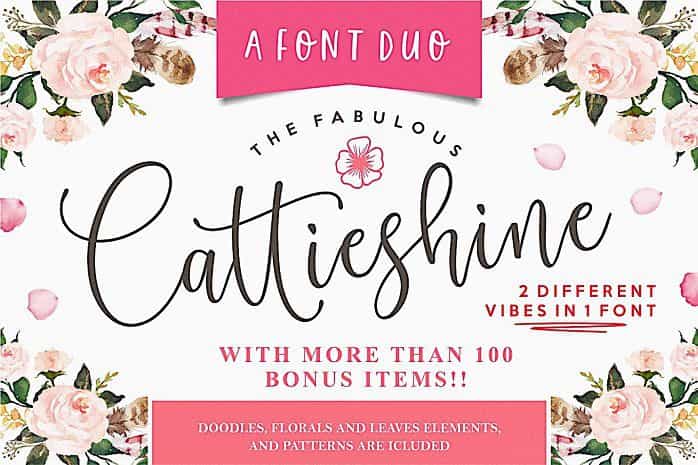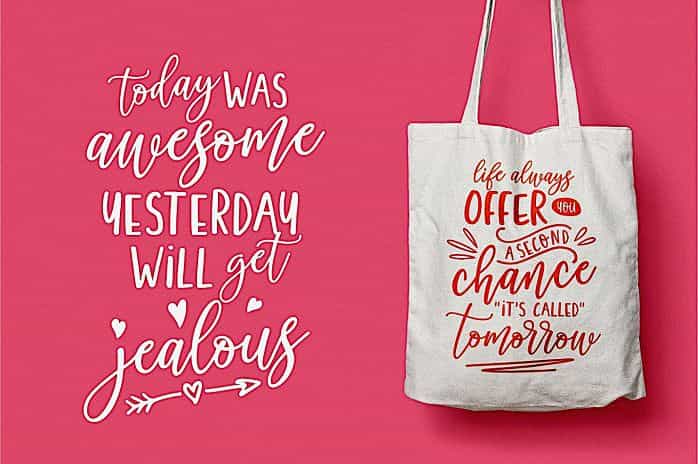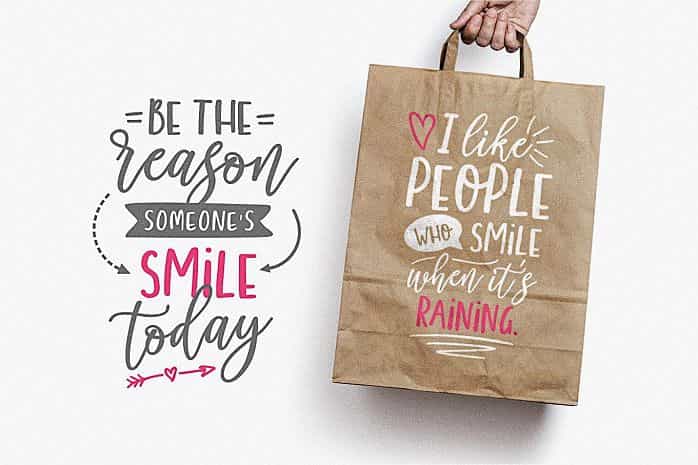
Discover Cattieshine Script Font, part of the Calligraphy collection—a versatile and unique font perfect for adding a personal touch to your projects. Download it for free and enjoy crafting designs with style, from invitations to social media posts. This font is available exclusively for personal use, giving you the freedom to create without limits. Unlock your creativity with Cattieshine Script Font today!
Introducing Cattieshine Font Duo. Cattieshine a font duo that can create a multitude of design styles. The Cattieshine Alt is joined with the Cattieshine Sans to create a perfect design for packaging, quotes, branding, gift cards, posters and even fun logos. Another Cattieshine has a different feeling, it is sweet and lovely. it would be a great fit for feminine, elegant and luxurious logos, branding, wedding invites and cards.